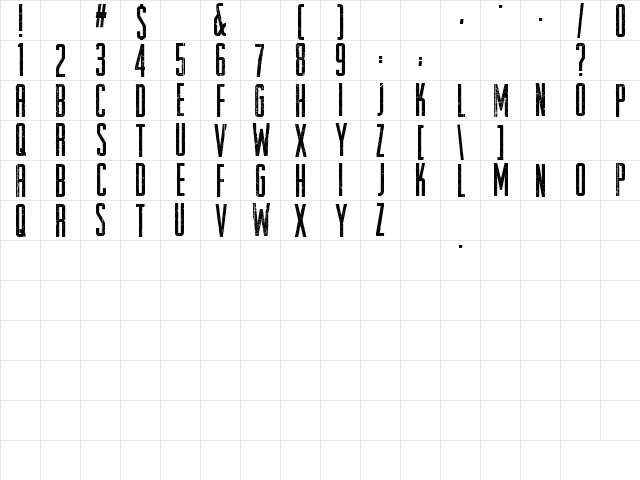
Raleigh Rock Regular
Raleigh Rock is a composed and adaptable typeface that performs quietly and consistently across a wide range of design contexts.